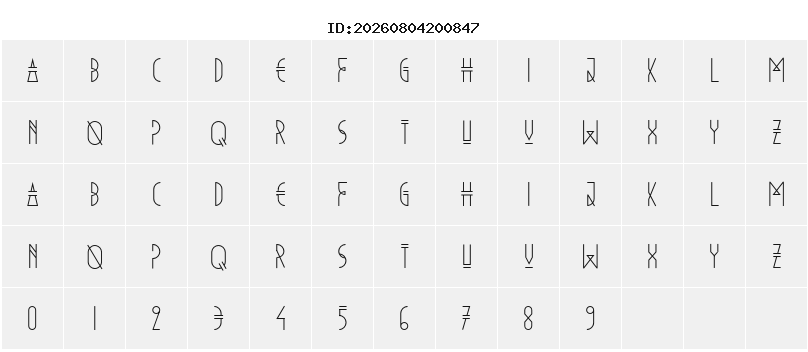
New Vera Preview
• Font Name: New Vera
• Full Font Name: NewVera
• PostScript Name: NewVera
About New Vera.otf
New Vera.otf is a modern, elegant sans-serif font designed for ultimate readability and visual harmony. Perfect for branding, headlines, web design, and print materials.